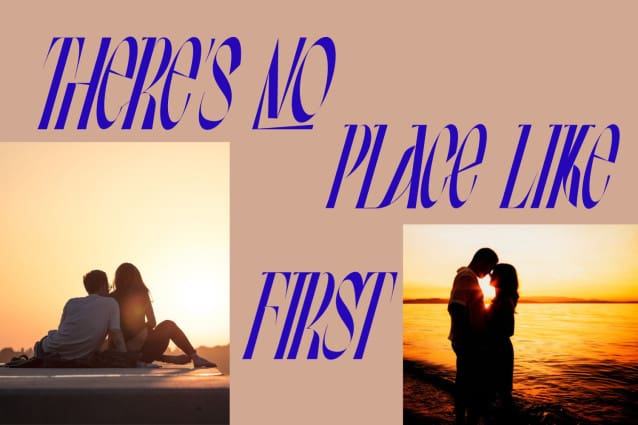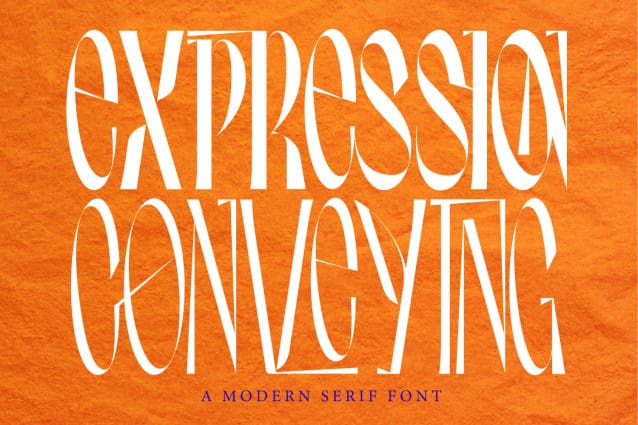
Expression Conveying Font is condensed sans-serif font that offers a minimalist design with its narrow width and clean lines, perfect for any branding or design project. A modern experimental display grotesque. This typeface challenges the usual ideas about the structure of symbols and harmony in the typesetting line. The typeface symbols are based on the average contrast of thicknesses and on the contrast of the shapes of the symbols themselves. This font is perfect for Headlines and titles, digital advertisements, brochures and flyers, infographics and data visualizations, navigation menus and labels, web designs, logotypes, t-shirts, and many more.
Expression Conveying was built with OpenType features and includes 100 ligatures, alternate, numbers, punctuation, and it also supports other languages.